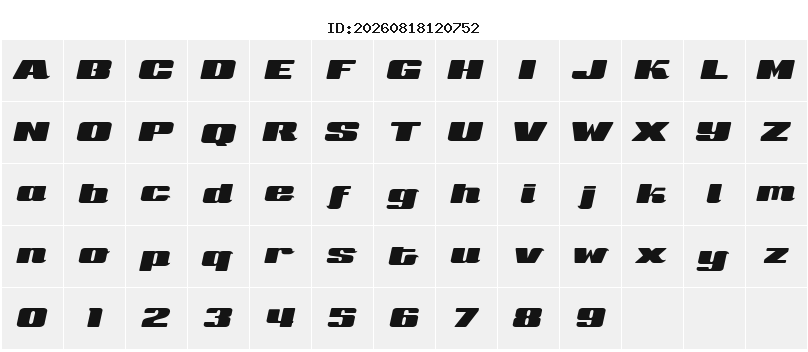
• Font Name: Sneakers Script UltraWide
About Sneakers Script UltraWide.ttf
Sneakers Script UltraWide.ttf is a modern, elegant sans-serif font designed for ultimate readability and visual harmony. Perfect for branding, headlines, web design, and print materials.